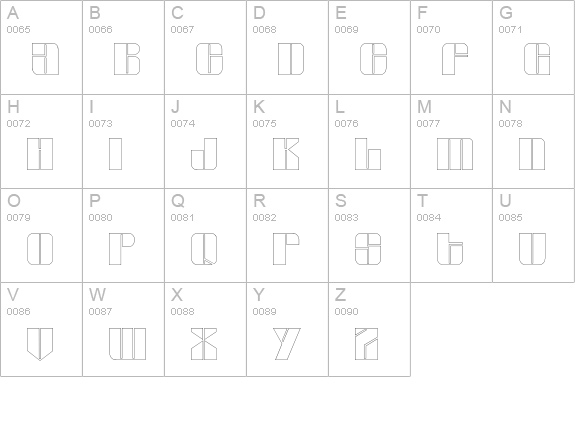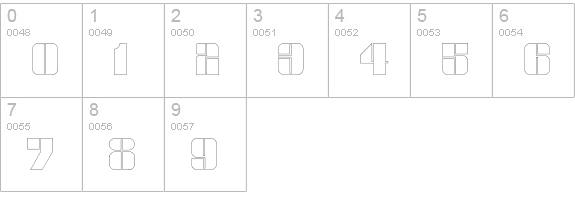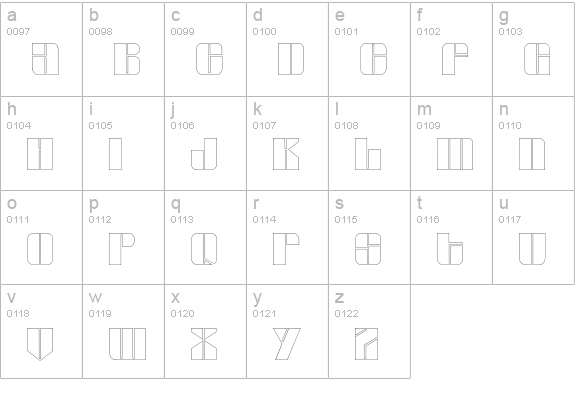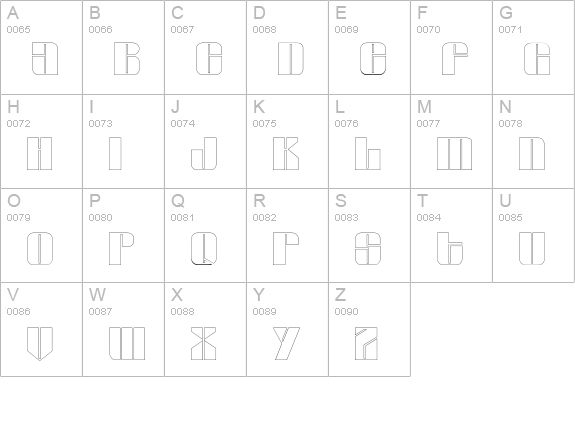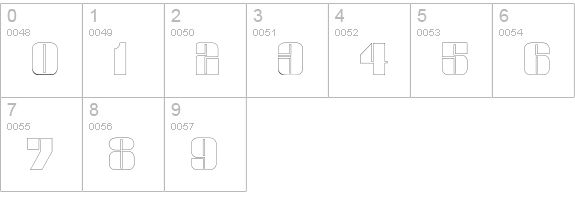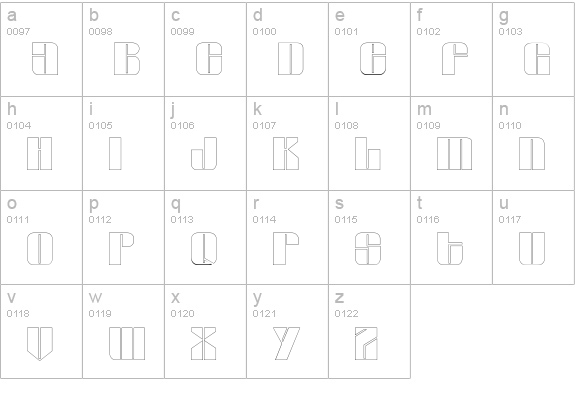
GlyphicSeriesOutline Font Details
The Glyphic Series Outline font is a stunning display typeface that combines sleek modern aesthetics with a touch of classic elegance. Its clean lines and geometric shapes create a distinctive look that is perfect for a wide range of design projects. This versatile font is ideal for headlines, logos, posters, and more, adding a touch of sophistication to any design. The sleek outlines of the glyphs give a contemporary feel while maintaining a timeless appeal. Best of all, the Glyphic Series Outline font is available for free download at FontsMarket.com. Whether you're a professional designer or a hobbyist looking to elevate your projects, this font is sure to make a statement. Download it today and add a touch of style to your designs!